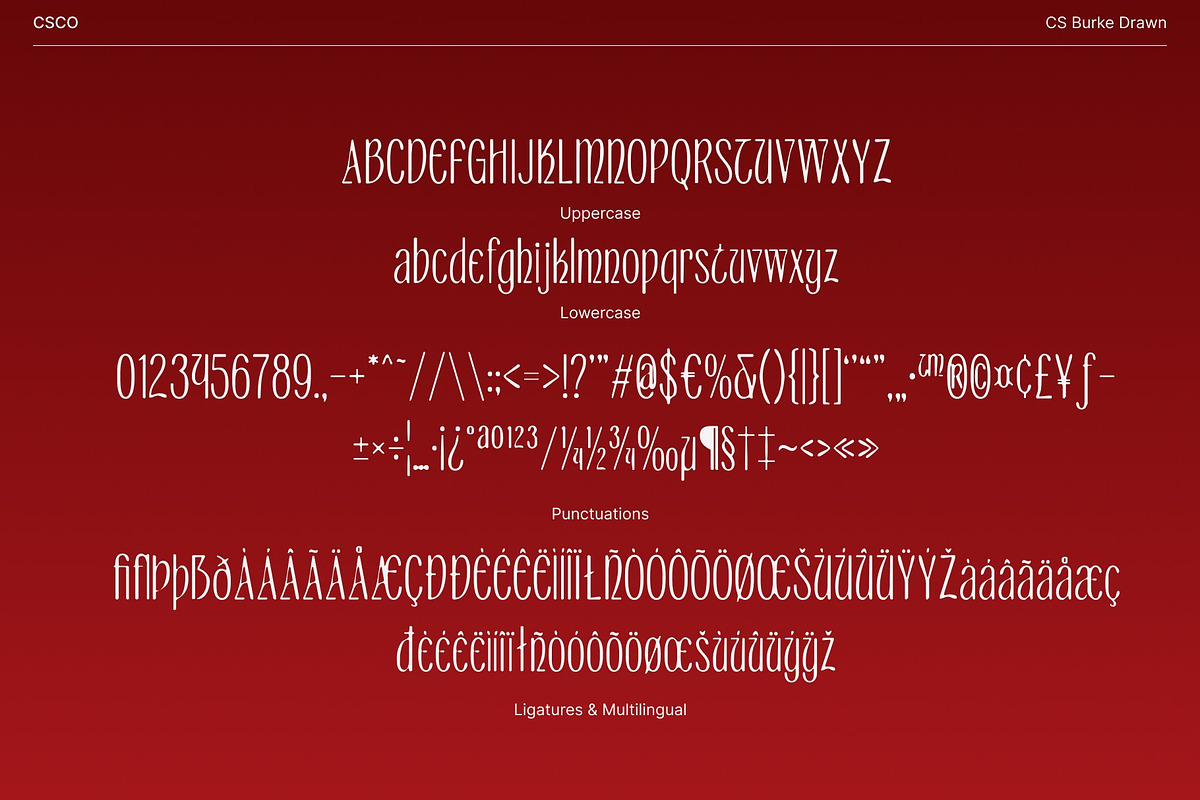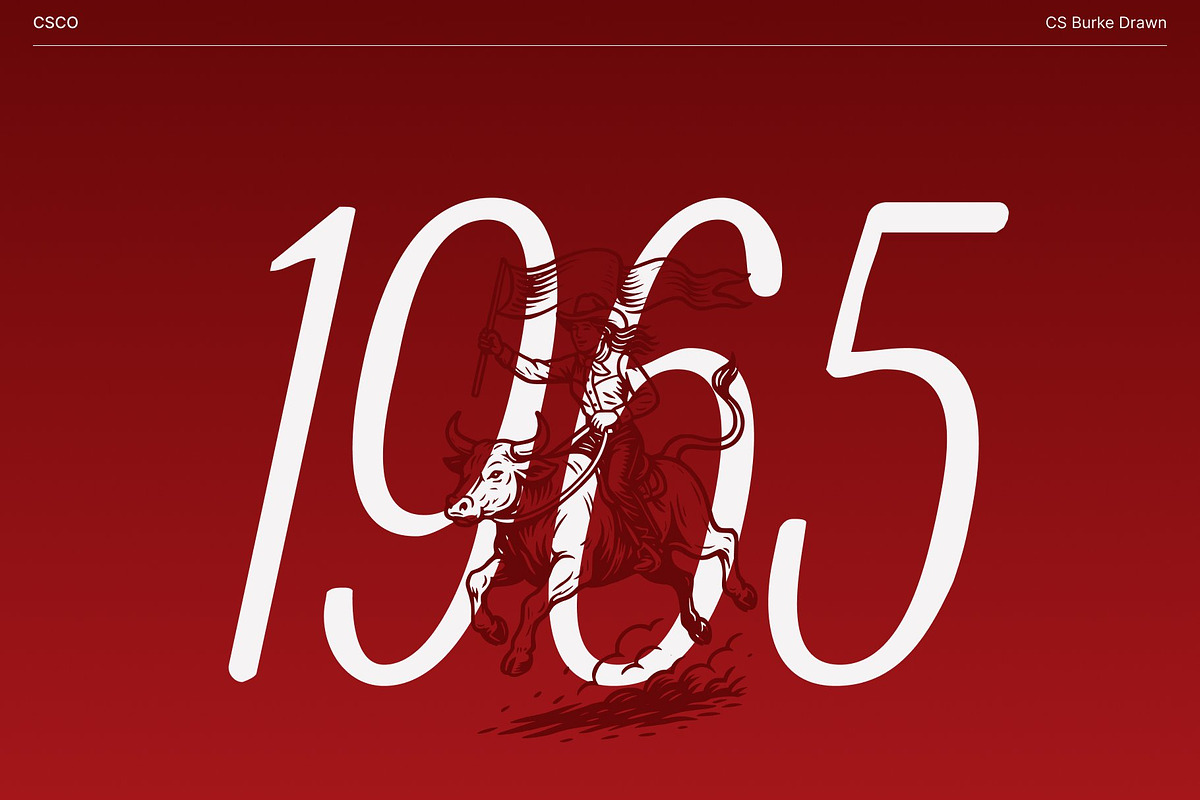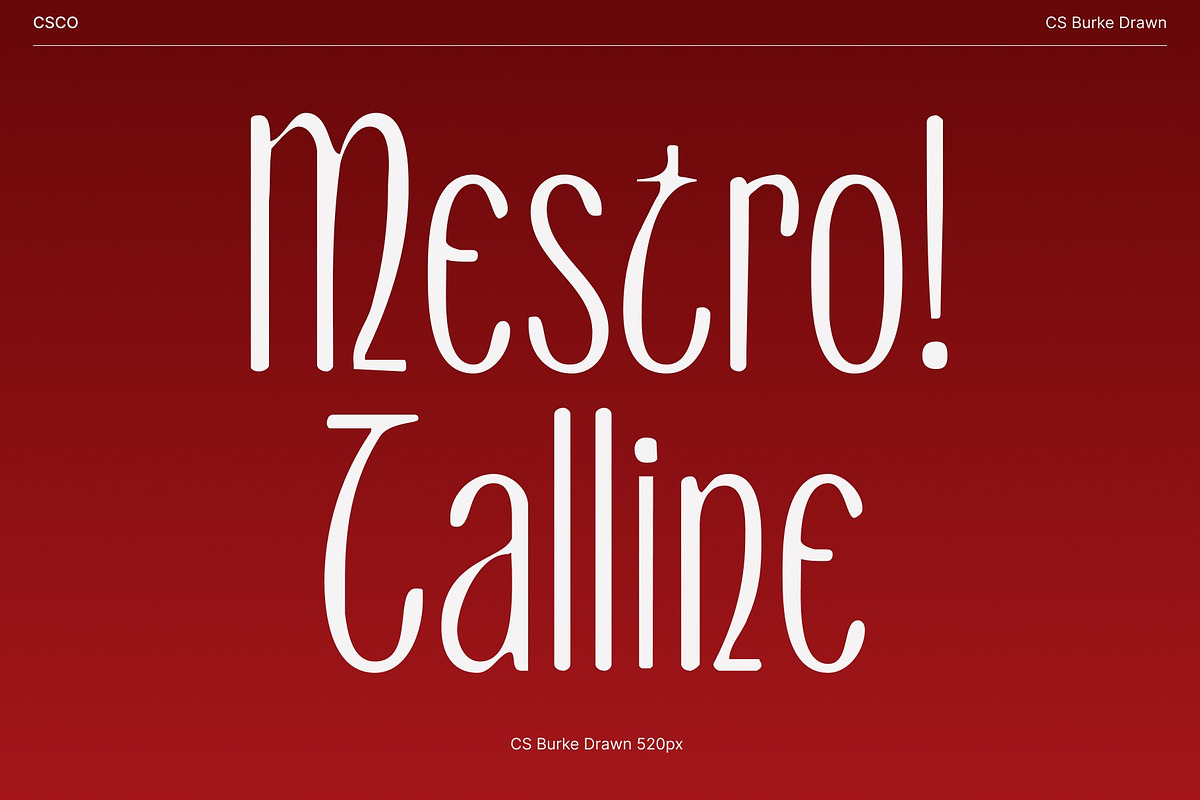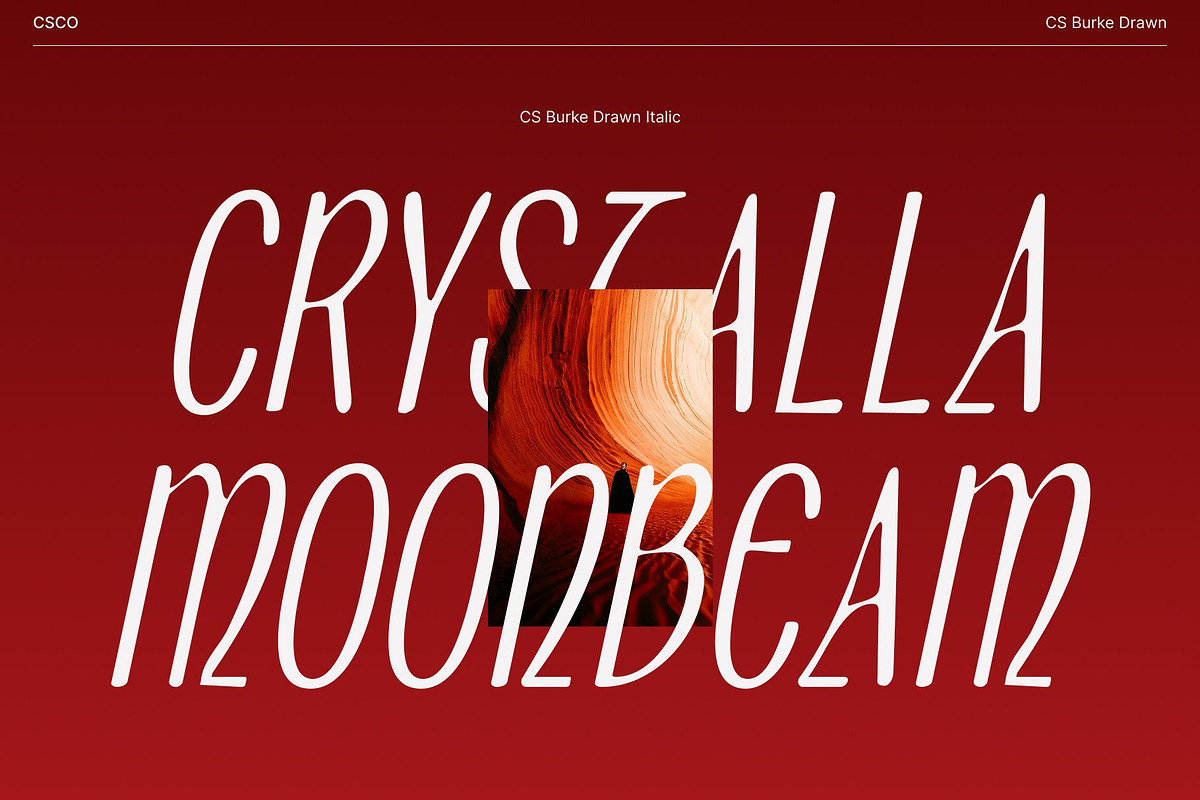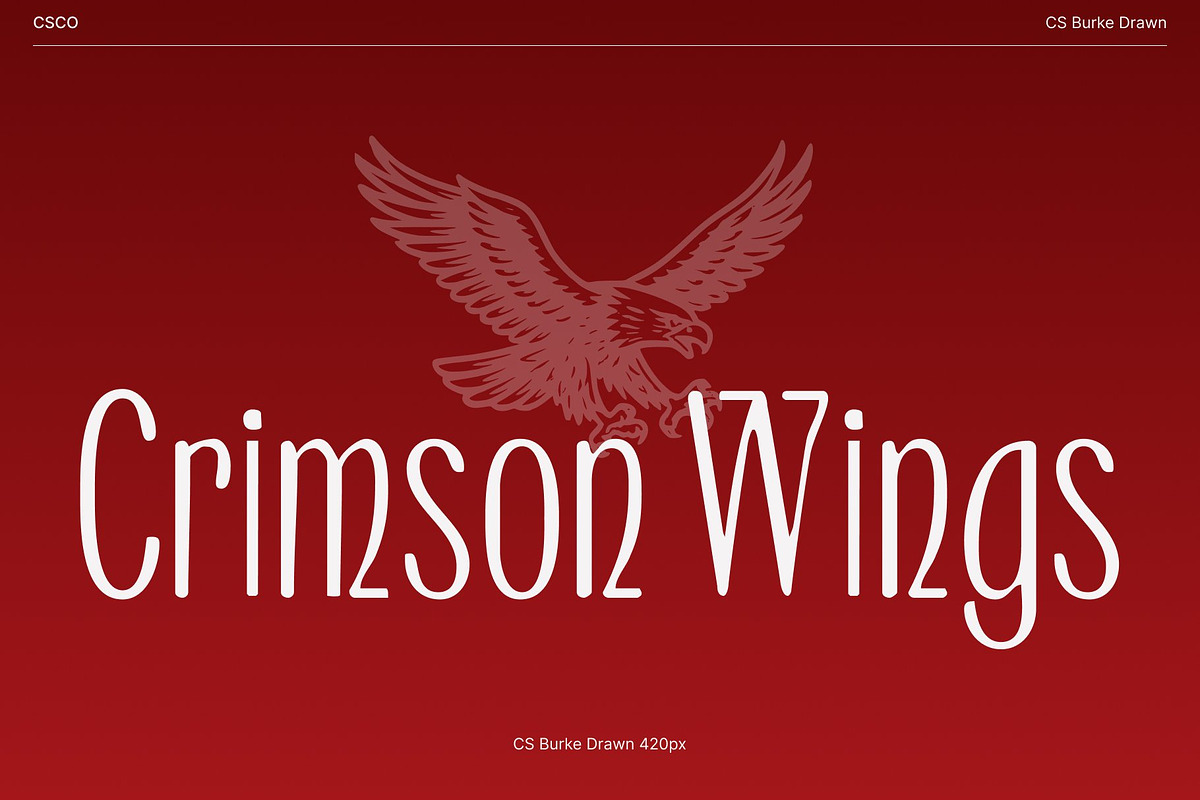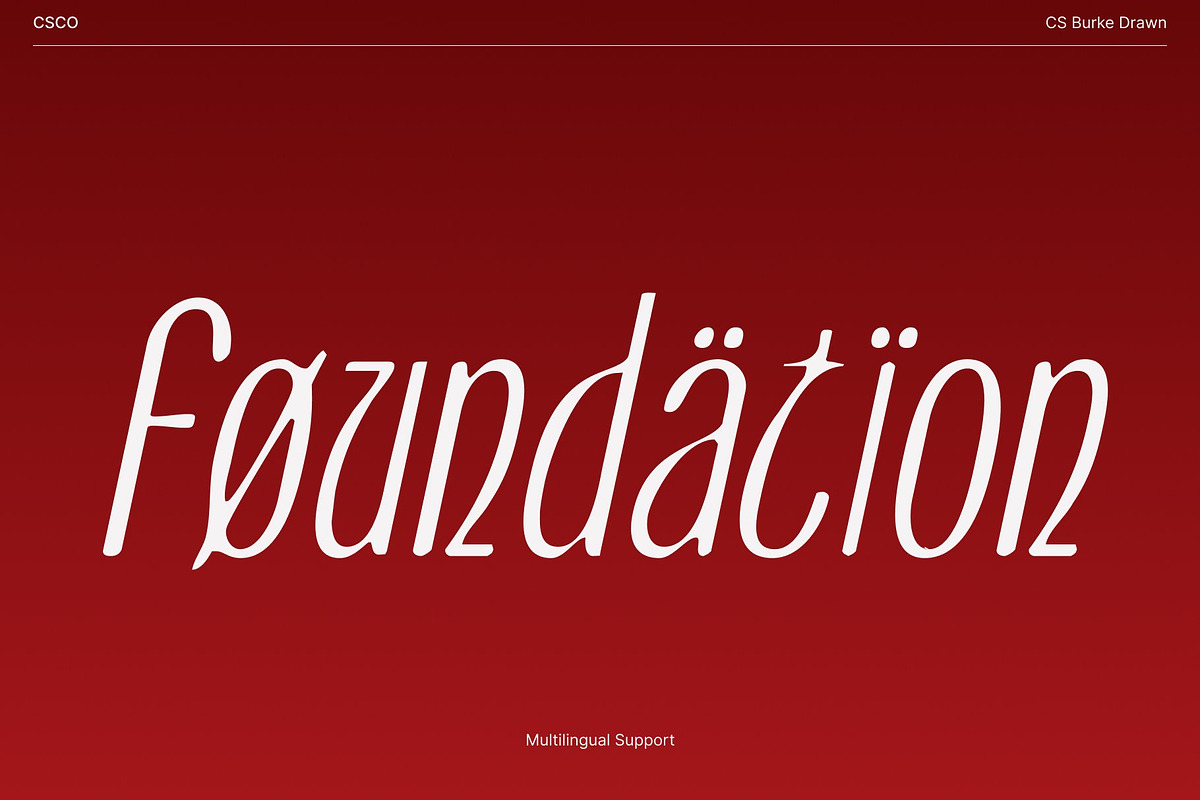
CS Burke Drawn
CS Burke Drawn – Slim Modern Sans Serif with beauty Handcrafted
Sleek, Condensed Sans Serif with Modern Flair This is a slim modern sans serif font that combines clean lines with beautifully crafted shapes. Its condensed structure creates a sleek, streamlined appearance, perfect for contemporary design projects that require clarity and elegance. Each letter is carefully balanced, delivering sophistication while maintaining visual impact across headlines, posters, and branding elements.
Hand-Drawn Effect for Depth and Personality The drawn, handmade effect gives this font its unique character. Subtle textures and organic imperfections add warmth and depth, transforming the clean modern lines into expressive, artisanal forms. This handcrafted touch enhances the font’s decorative appeal, making it feel approachable, artistic, and highly versatile for creative design applications.
Perfect for Branding, Posters, and Editorial Layouts This font excels in professional and creative contexts alike. Its refined, condensed forms make it ideal for branding, editorial titles, lifestyle posters, and high-end promotional materials. The combination of modern structure and handmade detailing ensures that text is both readable and visually captivating, providing designers with a versatile tool for sophisticated layouts.
Conveys Sophistication and Artistic Expression Designed for projects that demand style and personality, this font balances elegance with creativity. Its sleek modernity, paired with decorative hand-drawn textures, allows designers to craft visuals that feel both polished and expressive.